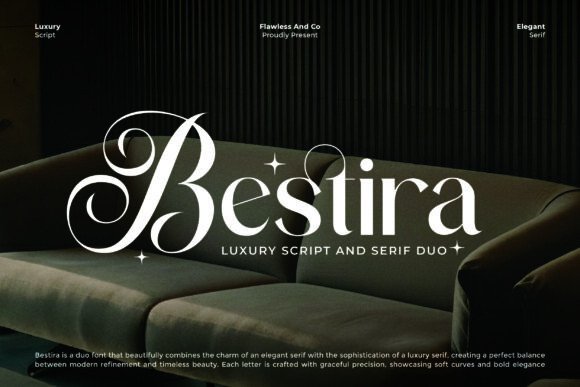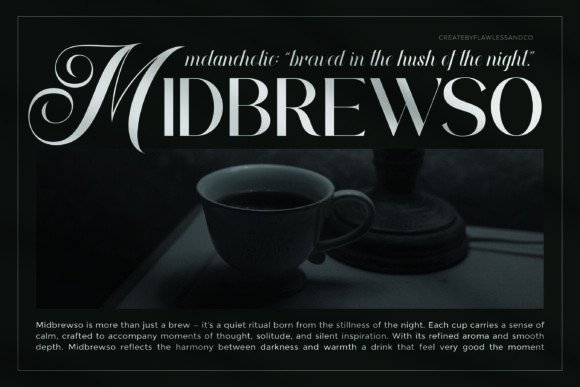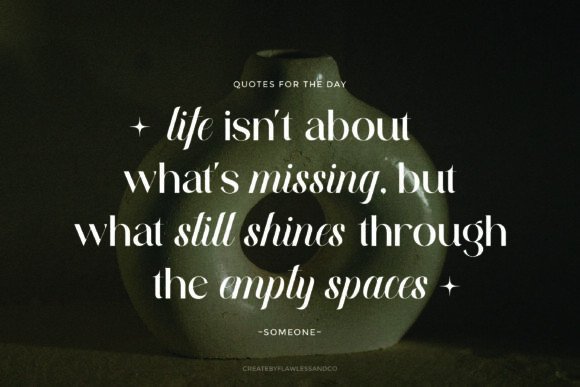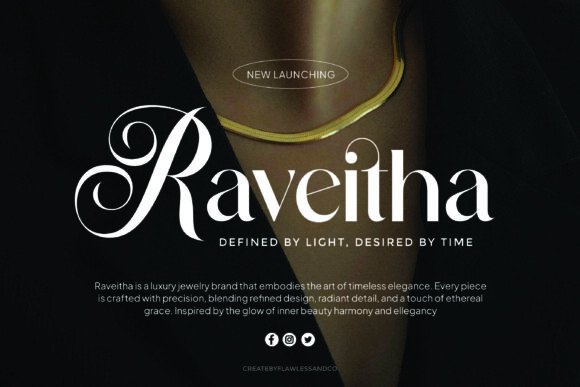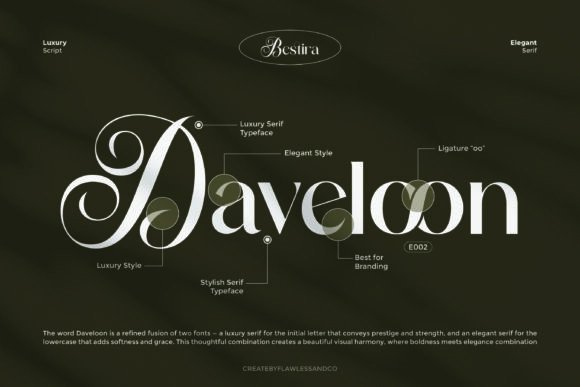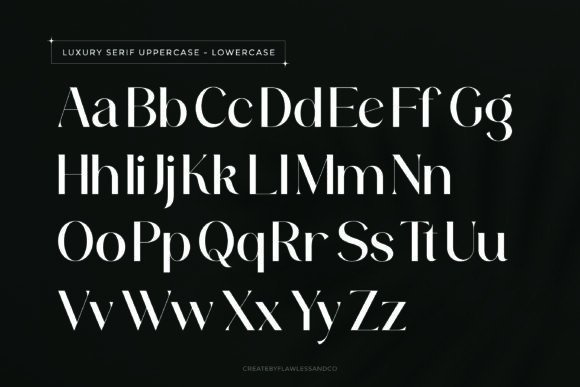
Bestira Duo Font
Bestira is a luxury duo typeface that harmoniously blends the grace of an elegant serif with the sophistication of a refined script. Designed to embody both timeless charm and modern luxury, Bestira creates a seamless balance between soft curves and confident structure. Each character is crafted with meticulous detail—delivering high contrast, fluid strokes, and graceful precision.